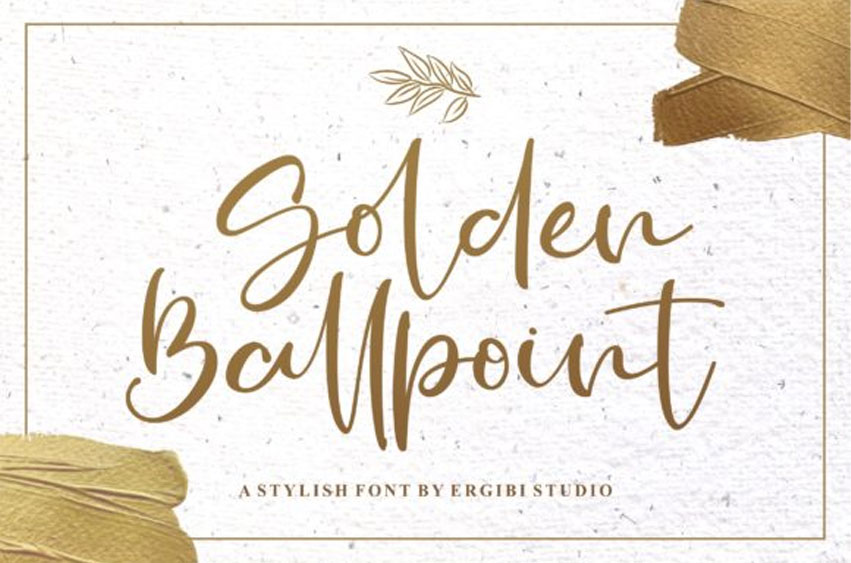
Golden Ballpoint Font feels equally charming and elegant. It looks stunning on wedding invitations, thank you cards, quotes, greeting cards, logos, business cards, and every other design that needs a handwritten touch.
This font is PUA encoded, which means you can access all of the glyphs and swashes with ease! It features a varying baseline, smooth lines, gorgeous glyphs, and stunning alternates.